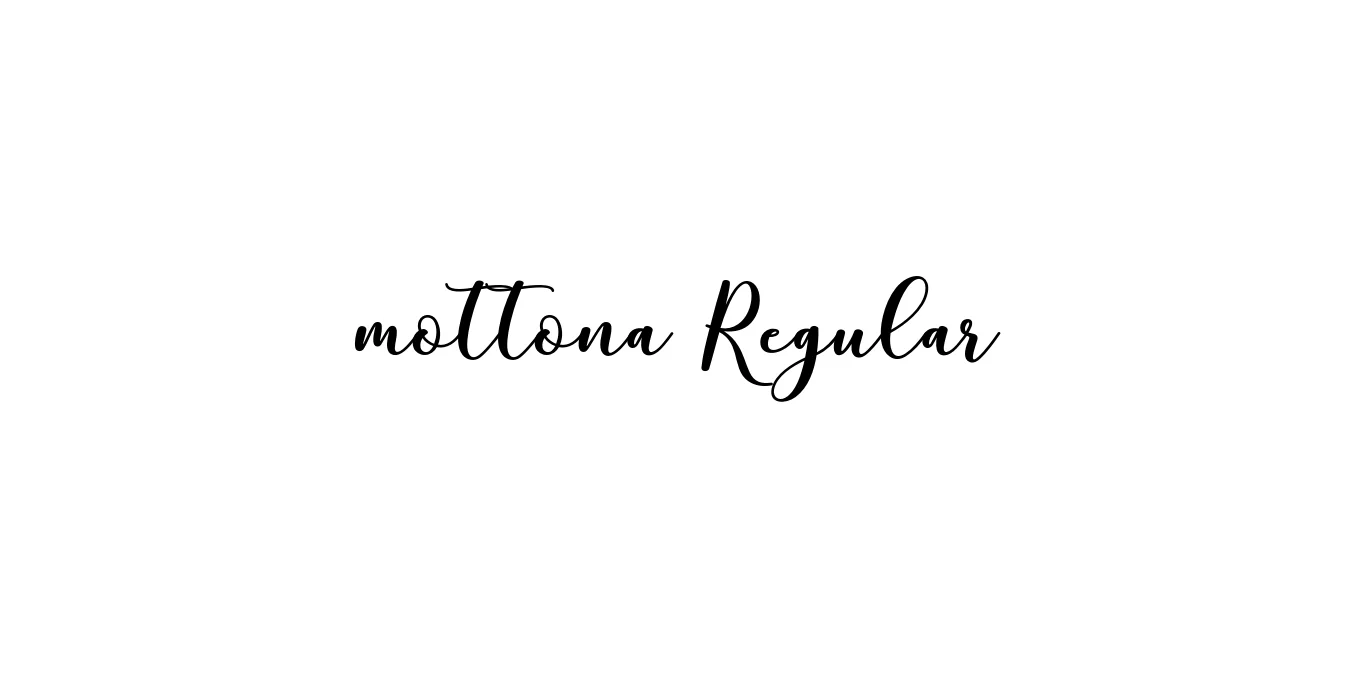
mottona Regular
Mottona Regular is an elegant and modern script font characterized by its smooth, flowing strokes and refined calligraphy style. It was crafted to bridge the gap between traditional handwriting and contemporary digital design, offering a sophisticated aesthetic that feels both personal and professional. The font features a variety of stylistic alternates and ligatures that allow designers to create unique, custom-looking typography effortlessly.
Since its release, Mottona has become a popular choice for high-end branding projects, particularly in the wedding and fashion industries. Its delicate weight and rhythmic consistency make it ideal for invitations, luxury packaging, and editorial layouts. The font is designed with OpenType features that ensure a seamless connection between characters, mimicking the organic flow of a fountain pen on premium paper.
mottona Regular Best Uses
Perfect for invitations, RSVP cards, and place settings.
Ideal for luxury fashion labels and beauty industry logos.
Great for artisanal product labels and high-end cosmetics.
Excellent for elegant quote graphics and lifestyle storytelling.